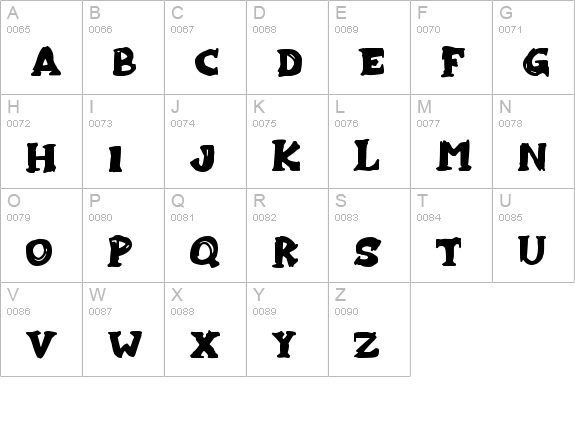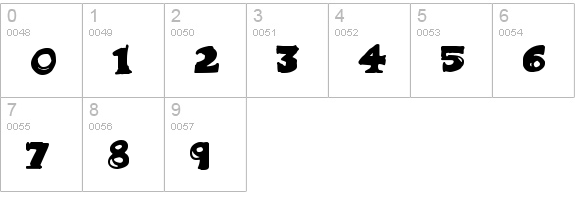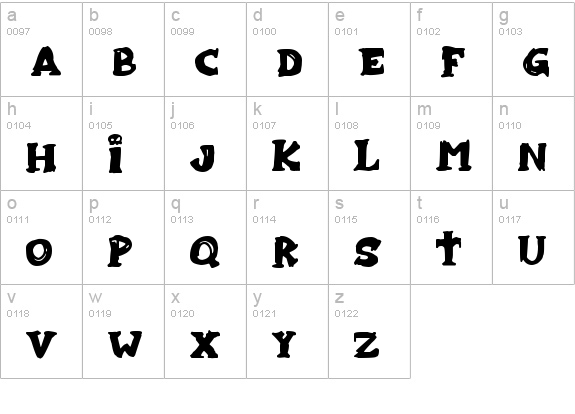
Zombiebites font is a hauntingly unique typeface that exudes a sense of creepy charm. Its jagged edges and distressed appearance give off an eerie vibe perfect for Halloween-themed projects or anything that requires a touch of the macabre. With its uneven letterforms and irregular spacing, Zombiebites adds a spooky twist to any design it graces.